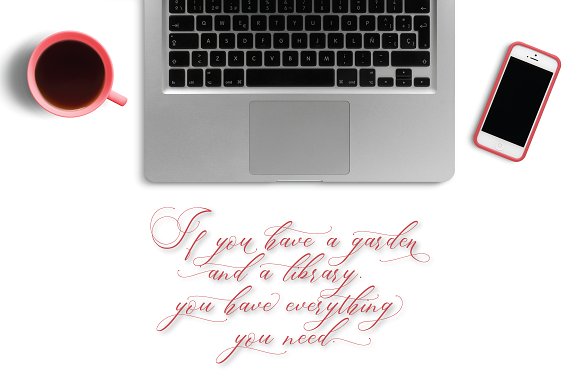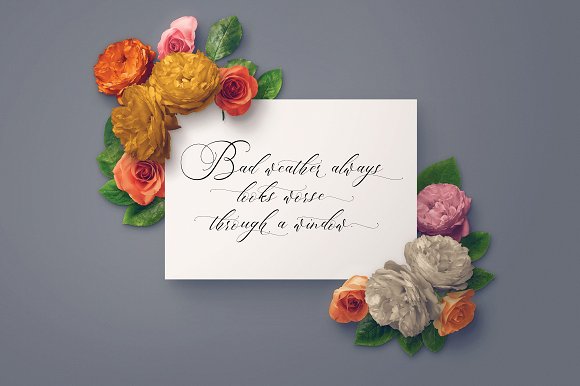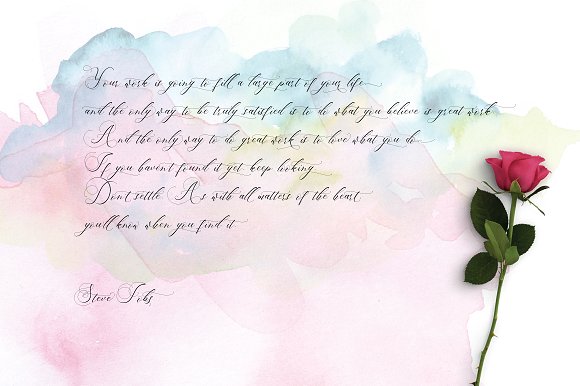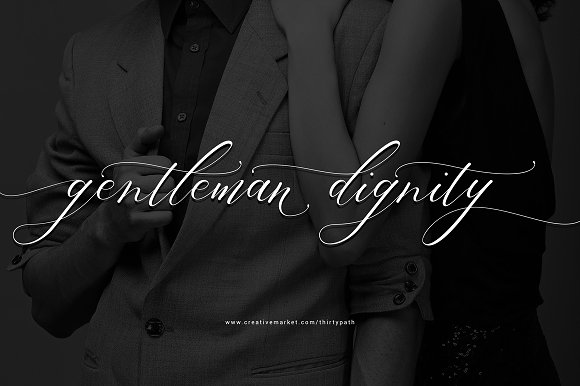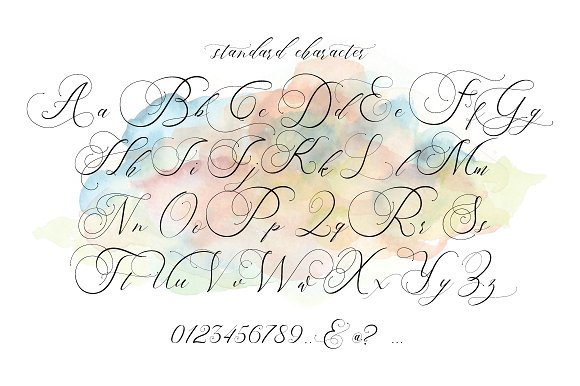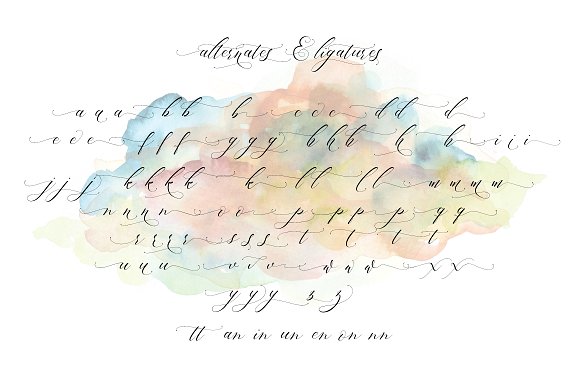
Unlocking the Beauty of Hand-Drawn Typography
As a designer, there’s nothing quite like the thrill of stumbling upon a unique font that perfectly captures the essence of your creative vision. For me, it was the moment I discovered the Beauty Angelique Font – a delicate, hand-drawn script that added a touch of whimsy to my latest design project. Its intricate details and flowing lines transported me to a world of elegance and sophistication.
The Beauty Angelique Font is a think, decorative font designed to add a touch of beauty and charm to any design. Whether you’re creating a wedding invitation, a branding logo, or a typography-driven art piece, this font is sure to make a lasting impression. Its versatility and unique style make it a valuable addition to any designer’s toolkit.
Beauty Angelique Font Key Features
- Unique Characteristics: Ornate, elegant script with intricate flourishes and ligatures, ideal for wedding invitations, formal events, and luxury branding
Review of Beauty Angelique Font
Overall, I think Beauty Angelique Font is a lovely addition to any designer’s toolkit. Here’s what I think works well:
- ✨ Elegant and feminine feel: This font perfectly captures the essence of luxury and sophistication, making it ideal for high-end branding and packaging designs.
- ✨ Wide range of applications: Beauty Angelique Font is suitable for a variety of projects, from cosmetics and beauty products to fashion and lifestyle brands.
- ✨ High-quality font files: The font files are well-crafted, ensuring crisp and clear rendering across different devices and platforms.
However, I do have a few reservations:
- ⚠️ Limited font styles: While the font has a range of weights, it’s missing some key styles, such as italic and bold italic, which might be a drawback for some designers.
- ⚠️ Not suitable for small text: Due to its intricate design, Beauty Angelique Font may not be the best choice for small text or body copy, where legibility is crucial.
In conclusion, Beauty Angelique Font is a beautiful and versatile font that can add a touch of elegance to your designs. However, its limitations should be taken into consideration when choosing the right font for your project.
Getting the Most Out of Beauty Angelique Font
For optimal results, use Beauty Angelique Font for titles, headings, and other emphasis text. It pairs well with elegant and sophisticated designs.
Beauty Angelique Font is suitable for:
- Luxury branding and packaging
- High-end fashion and beauty designs
Alternative Font Options for Beauty Angelique Font
The Great Vibes font is a beautiful, elegant script font that is perfect for creating a luxurious and sophisticated look. It is ideal for use in branding, packaging, and advertising materials where a high-end feel is desired. In comparison to Beauty Angelique Font, Great Vibes Font has a more modern and sleek appearance, making it a great choice for designers who want to add a touch of sophistication to their designs.
The Carolyna Pro font is a modern, elegant script font that is perfect for creating a beautiful and feminine look. It is ideal for use in branding, packaging, and advertising materials where a touch of elegance is desired. In comparison to Beauty Angelique Font, Carolyna Pro Font has a more refined and delicate appearance, making it a great choice for designers who want to add a touch of sophistication to their designs.
The Alex Brush font is a beautiful, elegant script font that is perfect for creating a luxurious and sophisticated look. It is ideal for use in branding, packaging, and advertising materials where a high-end feel is desired. In comparison to Beauty Angelique Font, Alex Brush Font has a more rustic and vintage appearance, making it a great choice for designers who want to add a touch of warmth to their designs.